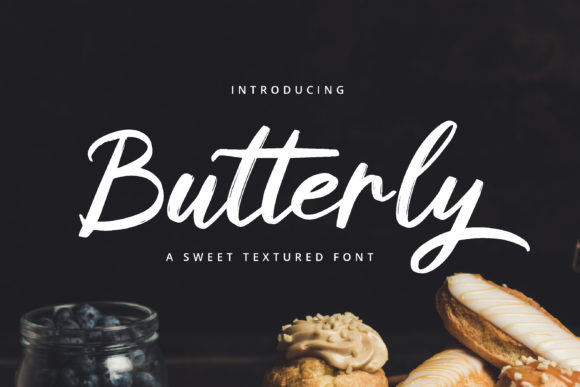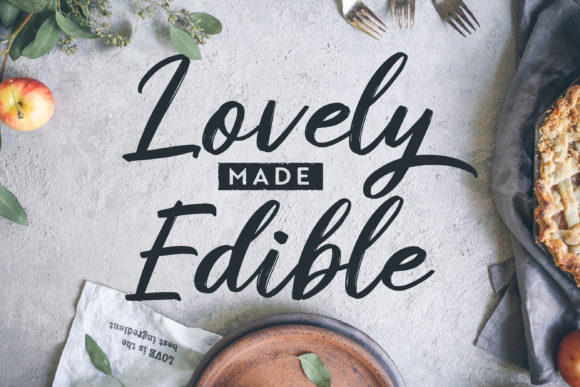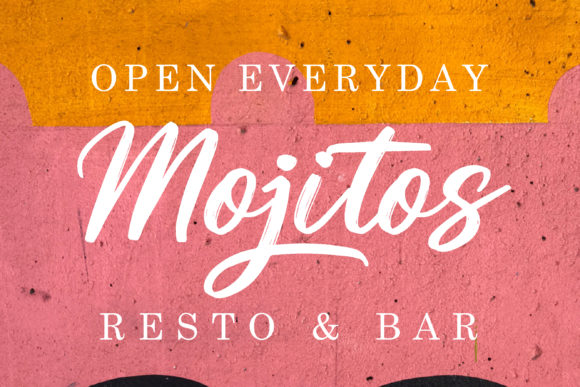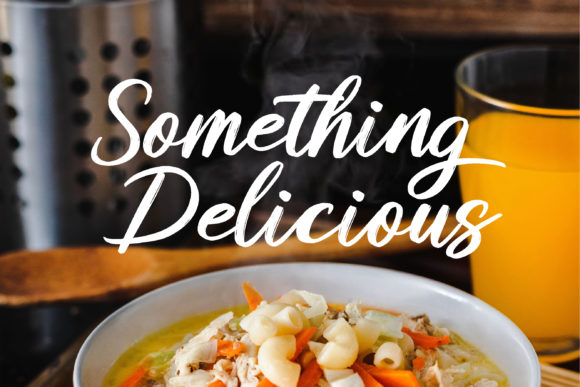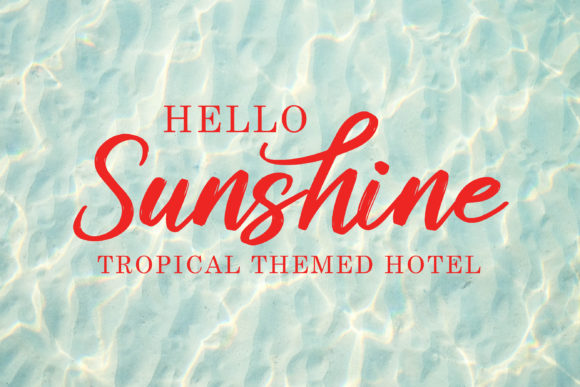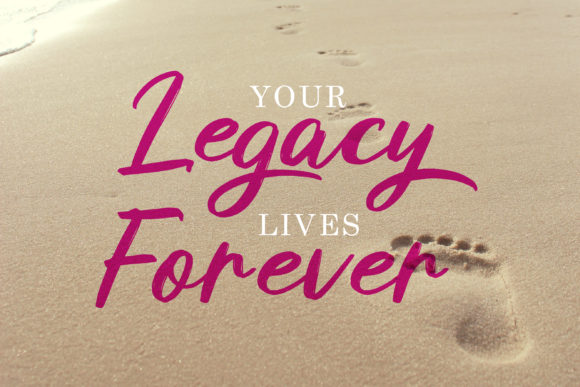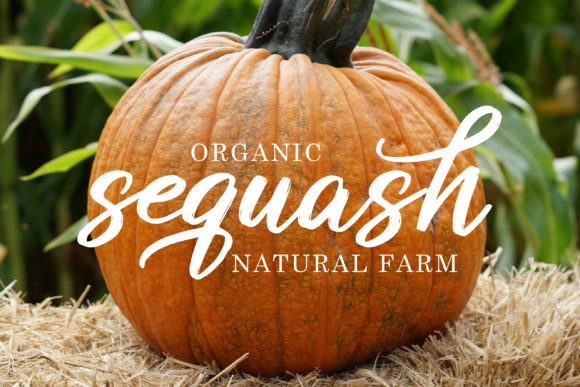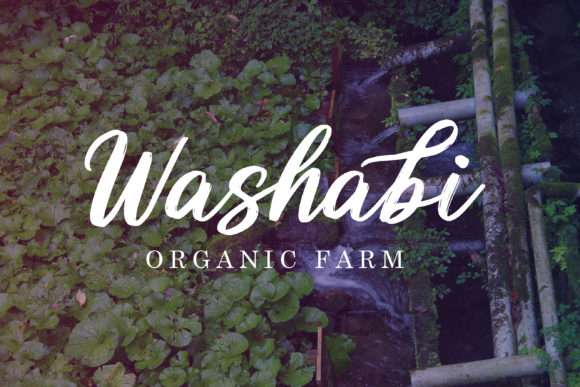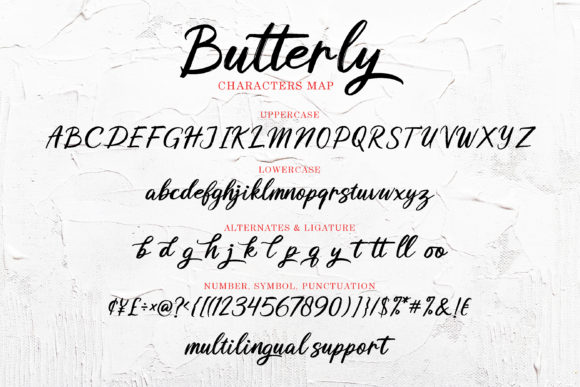
Butterly Font
About Butterly Font
The Butterly is an unique handwritten font. It was made with a brush pen and includes unique textures and its personal charm.
It can be used for branding projects, posters, home-ware designs, product packaging – or simply as a stylish text overlay to any background image.